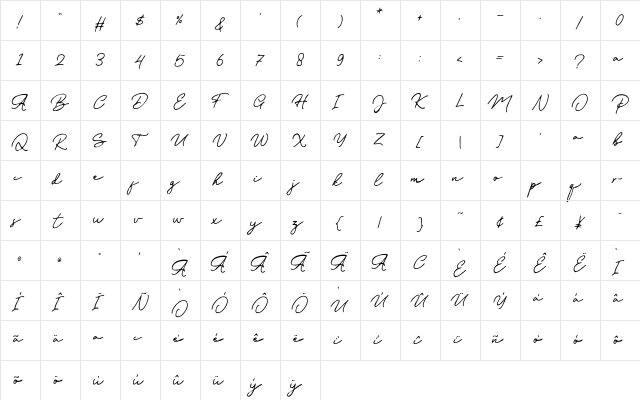
Old Bridges Rough Regular
| Foundry | Candra ~ Vultype Co |
| Designer | Candra ~ Vultype Co |
Design Context for Old Bridges Rough Typeface
Old Bridges Rough embraces imperfection — its rough, textured character adds raw authenticity to designs that want to feel lived-in and unconventional.
Suited to punk-influenced zines, underground music branding, streetwear, and raw, anti-corporate design.
Pro Tip: Pair Old Bridges Rough with intentionally raw or lo-fi design elements. Fighting against it with overly polished surroundings will undermine its personality.